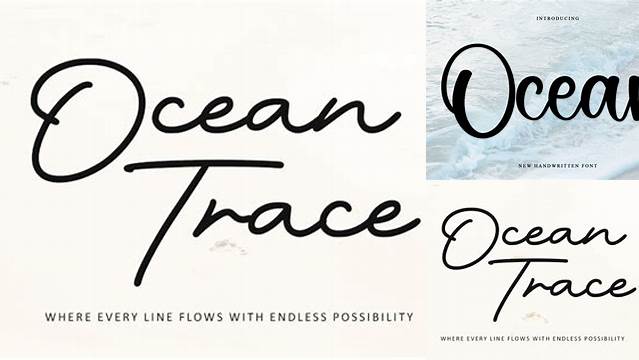
Hey guys! Are you on the hunt for a unique and captivating font to elevate your design projects? Look no further! Ocean Trace Personal Font is here to add a touch of elegance and personality to your creations. In this article, we'll dive deep into everything you need to know about this font, including where to find it for free download, its features, and how to use it effectively. So, buckle up and get ready to explore the fascinating world of Ocean Trace Personal Font!
What is Ocean Trace Personal Font?
Ocean Trace Personal Font is a stunning typeface designed with a distinct personality. It often features flowing lines, elegant curves, and a handcrafted feel, making it perfect for a wide range of design applications. Think of it as that cool, slightly quirky friend who always manages to stand out from the crowd. Its unique character makes it an excellent choice for projects that need a touch of individuality and sophistication. Whether you're working on branding materials, website designs, or print publications, Ocean Trace Personal Font can help you achieve a visually appealing and memorable result. It is especially effective in projects where you want to evoke a sense of creativity, artistry, or personal touch. This font differentiates itself through a unique blend of modern aesthetics and classic design principles, ensuring it remains versatile enough to complement diverse visual themes. The defining aspects often include carefully crafted letterforms that provide visual interest, along with variations in weight and style that provide creative flexibility. This ensures that Ocean Trace Personal Font is not just a typeface but also an expressive tool for designers seeking to make a lasting impression. The font's design usually includes considerations of readability and adaptability, allowing it to work seamlessly across different media formats, from digital interfaces to print materials. It is more than just a stylistic choice; it’s a practical asset that enhances the overall aesthetic and functional value of any design project.
Key Features of Ocean Trace Personal Font
So, what makes Ocean Trace Personal Font so special? Let's break down its key features:
- Unique Design: The flowing lines and elegant curves create a distinctive and memorable look.
- Handcrafted Feel: Gives your projects a personal and authentic touch.
- Versatility: Suitable for various design applications, from branding to web design.
- Readability: Designed to be legible in both large and small sizes.
- Multiple Weights & Styles: Offers flexibility and customization options.
But let’s dive deeper into each of these features. The unique design of the Ocean Trace Personal Font typically involves a carefully considered balance between form and function. Designers often incorporate distinctive elements that make the font instantly recognizable, setting it apart from more generic typefaces. This may include unique serifs, unusual stroke contrasts, or innovative letterform structures. The handcrafted feel is achieved through subtle imperfections and irregularities that mimic the look of hand-drawn lettering. This lends a sense of warmth and authenticity to the font, making it ideal for projects that require a personal touch. The versatility of the Ocean Trace Personal Font stems from its ability to adapt to different design contexts. Whether it’s used for headlines, body text, or decorative elements, the font maintains its visual appeal and readability. This adaptability is further enhanced by the availability of multiple weights and styles, which allow designers to fine-tune the font's appearance to suit their specific needs. These variations can range from light and delicate versions to bold and impactful ones, providing ample opportunities for creative expression. The readability of the Ocean Trace Personal Font is also a crucial consideration. Despite its unique design elements, the font is carefully crafted to ensure that it remains legible in various sizes and formats. This involves paying attention to factors such as letter spacing, kerning, and x-height, all of which contribute to a comfortable reading experience. By balancing aesthetics with practicality, Ocean Trace Personal Font offers designers a powerful tool for creating visually stunning and highly functional designs.
How to Use Ocean Trace Personal Font Effectively
- Pair it Wisely: Combine it with a simple sans-serif font for a balanced look.
- Use it Sparingly: Don't overuse it; let it shine in headlines or key design elements.
- Consider the Context: Make sure it aligns with the overall tone and message of your project.
- Experiment with Weights & Styles: Play around with different variations to find the perfect fit.
- Test Readability: Ensure it's legible in both print and digital formats.
Elaborating on these points, pairing it wisely involves selecting a complementary font that enhances rather than competes with the Ocean Trace Personal Font. A simple sans-serif font often works well because its clean lines provide a visual contrast to the more elaborate details of Ocean Trace. This combination can create a balanced and harmonious design. Using it sparingly is crucial because the unique design of Ocean Trace can easily become overwhelming if overused. By reserving it for headlines, logos, or key design elements, you can draw attention to specific areas and create a strong visual impact. Considering the context ensures that the font aligns with the overall message and tone of your project. For example, if you're designing a website for a luxury brand, Ocean Trace can add a touch of elegance and sophistication. However, if you're designing a website for a children's brand, a more playful and whimsical font might be more appropriate. Experimenting with weights and styles allows you to fine-tune the font's appearance to suit your specific needs. Different weights can create different levels of emphasis, while different styles can add visual interest and variety. Testing readability is essential to ensure that the font is legible in both print and digital formats. Factors such as font size, line height, and letter spacing can all affect readability, so it's important to test different combinations to find the optimal settings. By following these tips, you can effectively use Ocean Trace Personal Font to create visually stunning and highly functional designs.
Alternatives to Ocean Trace Personal Font